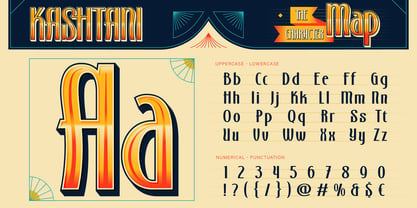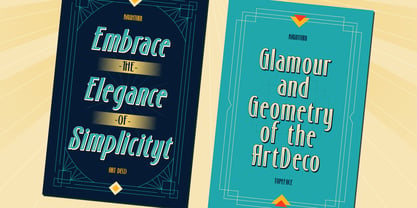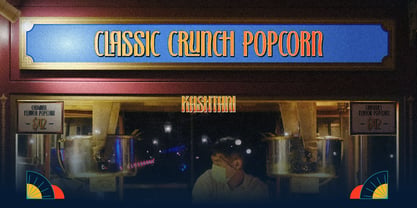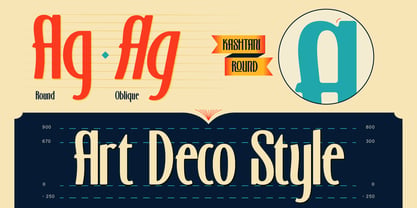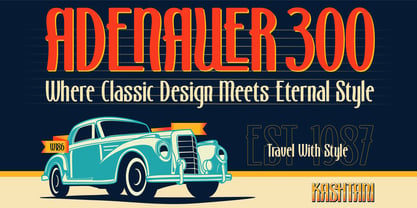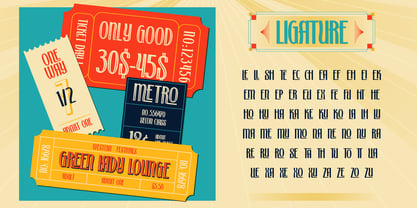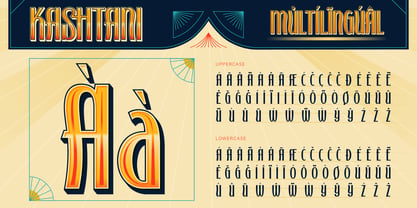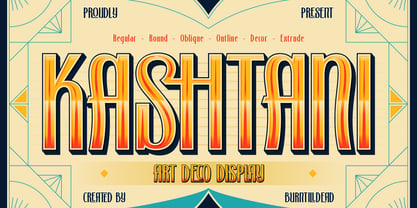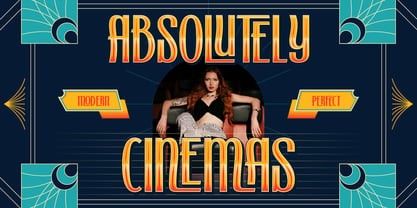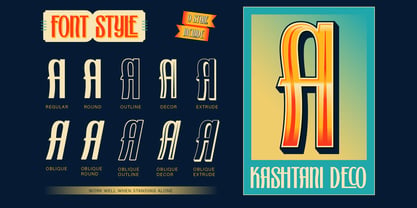
Kashtani
by Burntilldead
The Kashtani Font Family was designed by Eric Kurniawan and published by Burntilldead. Kashtani contains 10 styles and family package options. More about this family
Say hello to Kashtani — your new favorite Art Deco display font that brings vintage glam with a modern twist! ✨ Inspired by the roaring 1920s but designed for today’s creatives, Kashtani knows how to make an entrance. It’s bold, classy, and a little bit extra, just like that friend who always shows up overdressed (and somehow, it always works). With multiple styles like Regular, Round, Oblique, Outline, Decor, and Extrude, Kashtani gives you endless possibilities to create stunning headlines, posters, logos, or even that retro movie title you’ve been dreaming about. Perfect for anyone who loves a touch of nostalgia mixed with confident elegance — because honestly, why be plain when you can be Kashtani fabulous?
Designers: Eric Kurniawan
Foundry: Burntilldead